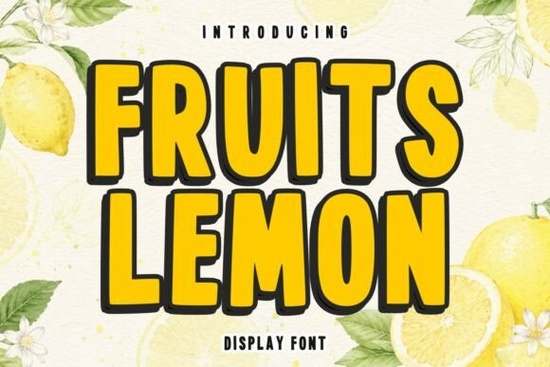
If you need a typeface that instantly brings a sunny, playful vibe to your projects, the Fruits Lemon Font is a solid choice. Designed with thick, rounded letterforms and a cheerful personality, this display font captures the essence of fresh lemons and summer energy. It works especially well for food packaging, beverage labels, kids’ merchandise, and any design that calls for a friendly, eye-catching headline.
What makes this font stand out for food packaging?
When you’re designing for lemonade stands, citrus products, or farmers market promotions, readability and mood matter. The bold strokes of this font ensure your text stays legible even at small sizes, while the playful curves add warmth. It’s not overly decorative just enough character to feel handmade and approachable. For a more structured counterpart, take a look at the geometric, clean lines of Street Monolith Font, which works well for modern minimalist branding. Together, they offer contrast within a single project if needed.
How can print-on-demand sellers use this font effectively?
Print-on-demand (POD) sellers often need designs that grab attention fast. Fruits Lemon Display Font excels on T‑shirts, tote bags, mugs, and sticker sheets. Its thick letters fill space well, making phrases like “Sunshine in a Cup” or “Lemonade Days” easy to read from a distance. Pair it with simple illustrations of citrus slices or leaves for a cohesive look. If you prefer a hand-drawn aesthetic, Fellast Font offers a rougher, marker-style alternative that also suits casual apparel.
For greeting cards or wall art, the font’s upbeat tone pairs naturally with bright yellows and greens. You can size it up for a bold headline and use a simpler sans-serif for body text. Experiment with layering the letters over a watercolor wash or a subtle pattern.
Which projects work best with this style?
Beyond food and drink branding, this font shines in children’s designs picture book covers, birthday invitations, nursery decor. The rounded shapes feel safe and friendly. It’s also great for event banners, social media graphics, and sticker packs. If you need a feminine or elegant display font for weddings or beauty brands, Unreal Beauty Font provides delicate swashes and a refined touch. Meanwhile, Bloby Crush Font brings a quirky, blob-inspired silhouette that complements ultra‑casual projects.
Practical tips for using Fruits Lemon Font
- Pair with neutral backgrounds – The font stands out on white, cream, or light pastels, avoiding visual clutter.
- Use all caps for short messages – The uppercase letters have a consistent weight that improves readability on merchandise.
- Layering – Place the text over a simple lemon icon or a subtle halftone pattern for extra personality.
- Color palette – Stick to citrus hues (yellow, orange, lime) or go monochrome for a cleaner, modern look.
Is this font suitable for body text or just headlines?
Because it’s a display typeface with thick strokes, it’s best reserved for headlines, short phrases, and logos. For longer paragraphs, you’ll want a more neutral companion font. That said, the friendly style can also work in smaller sizes if you use it sparingly for example, on a juice label’s ingredient list or a sticker’s small print.
What crafters and small business owners should know
If you run a craft shop on Etsy or sell at local markets, this font can give your product packaging a consistent, happy identity. Use it on price tags, thank-you cards, and banners. Because it’s a digital font, you can resize it for anything from a tiny label to a large poster without losing quality. For more offbeat, organic shapes, Bloby Crush Font offers a different kind of playfulness that works for eco-friendly or nature‑inspired lines.